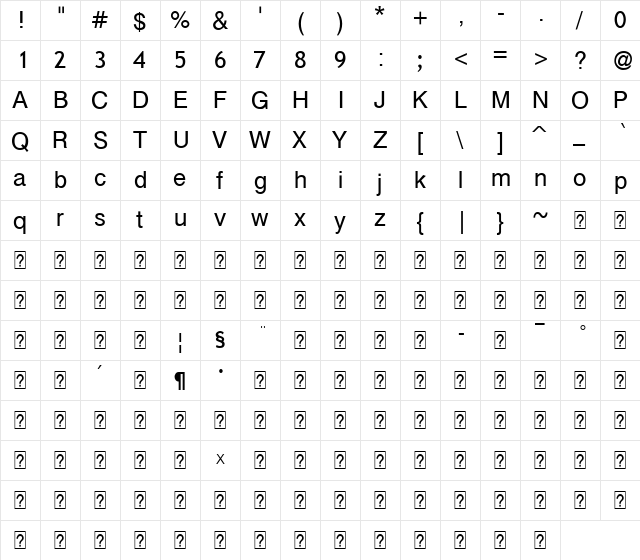
Galilee Unicode Gk Regular
Design Context for Galilee Unicode Gk Typeface
Galilee Unicode Gk brings the precise, column-aligned rhythm of monospaced typography to designs that value technical clarity and systematic order.
Well-suited to data-driven dashboards, coding tutorials, and any design that wants to reference the world of programming.
Pro Tip: Use Galilee Unicode Gk with slightly increased line-height for extended reading — fixed-width spacing can feel dense in longer passages without extra breathing room.